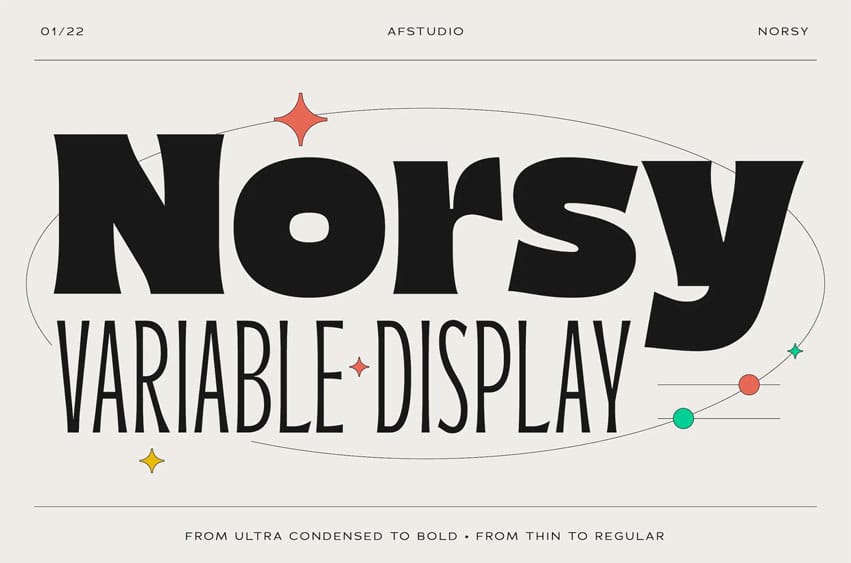
Norsy Font is a modern and elegant variable font. It is primarily a sans-serif typeface with a subtle touch of serif in each letter. This font embodies simplicity while maintaining excellent legibility, offering various widths and weights for you to explore and combine, making it a valuable tool for your design projects.